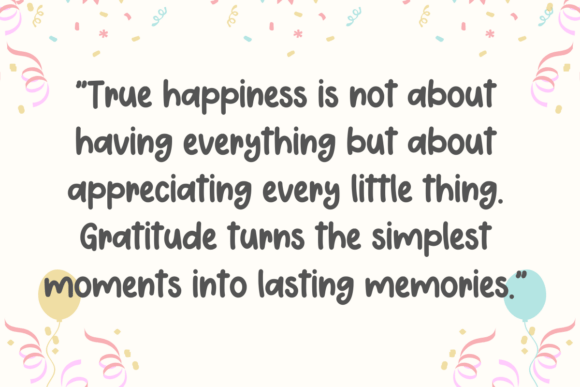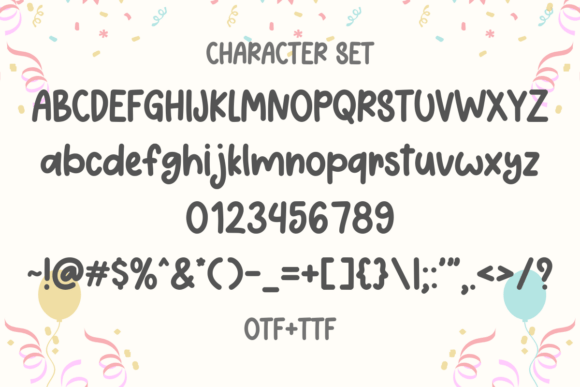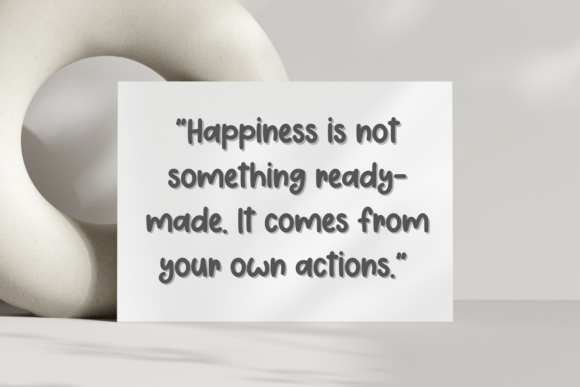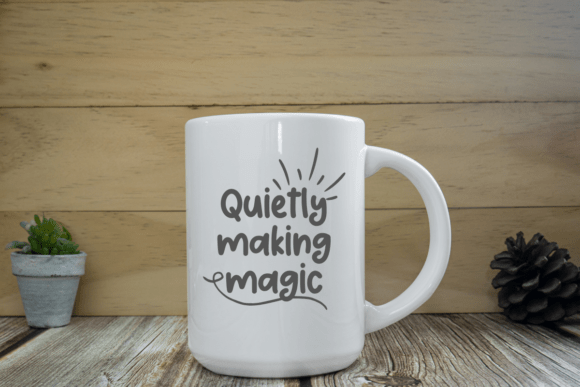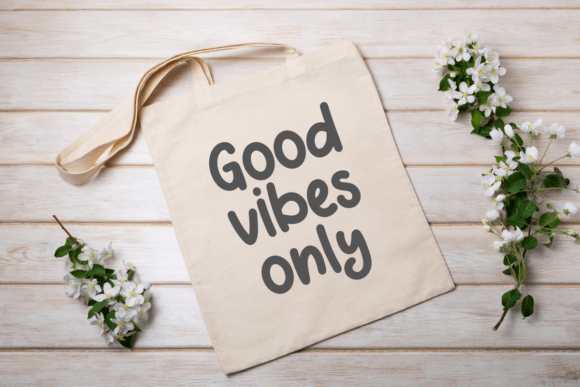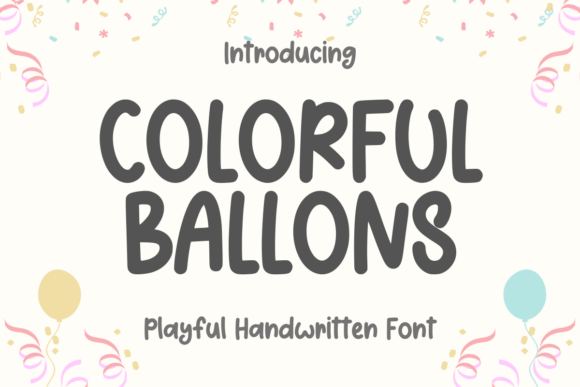
Introducing Colorful Balloons Font: The Perfect Playful Handwritten Font for Crafters and Designers
Are you a crafter, designer, or maker looking for a fun and playful font to elevate your creative projects? Look no further than Colorful Balloons Font! This delightful handwritten font is perfect for adding a touch of whimsy and personality to your crafts, planners, KDP, stickers, greeting cards, and more.
What Makes Colorful Balloons Font So Special?
Colorful Balloons Font is a unique and eye-catching font that is sure to capture attention. Its cute and friendly style makes it perfect for a wide range of creative projects, from DIY crafts to professional designs. Whether you’re a seasoned designer or a crafty hobbyist, this font is sure to inspire your creativity and bring a smile to your face.
Perfect for Crafters and Makers
Colorful Balloons Font is ideal for crafters and makers who love to create unique and personalized items. Whether you’re making stickers, greeting cards, or decorations, this font adds a playful touch that’s sure to delight. It’s also perfect for use with Cricut machines, sublimation projects, and other creative DIY endeavors.
Key Features of Colorful Balloons Font
- Playful handwritten style: Colorful Balloons Font features a fun and playful handwritten style that’s perfect for adding a personal touch to your projects.
- Cute and friendly: This font is designed to be cute and friendly, making it perfect for projects that require a touch of whimsy and personality.
- Versatile: Colorful Balloons Font can be used for a wide range of creative projects, from crafts and planners to KDP and stickers.
Ideas for Using Colorful Balloons Font
So, how can you use Colorful Balloons Font in your creative projects? Here are a few ideas to get you started:
- Create custom stickers: Use Colorful Balloons Font to create custom stickers for your planner, journal, or scrapbook.
- Make personalized greeting cards: Add a playful touch to your greeting cards with this fun and colorful font.
- Design unique planners and journals: Use Colorful Balloons Font to create custom planners and journals that are both functional and fun.
- Add a touch of whimsy to your KDP projects: Whether you’re creating children’s books or adult coloring books, this font is sure to add a touch of personality to your KDP projects.
Why Choose Colorful Balloons Font?
So, why choose Colorful Balloons Font for your creative projects? Here are just a few reasons:
- Unique and eye-catching: This font is sure to capture attention and add a touch of personality to your projects.
- Versatile: This font can be used for a wide range of creative projects, from crafts and planners to KDP and stickers.
Colorful Balloons Font is a playful handwritten font that’s perfect for crafters, designers, and makers. With its cute and friendly style, it’s ideal for adding a touch of whimsy and personality to your creative projects. Whether you’re making stickers, greeting cards, or decorations, this font is sure to inspire your creativity and bring a smile to your face. So why wait? Download Colorful Balloons Font today and start creating your own unique and eye-catching projects!